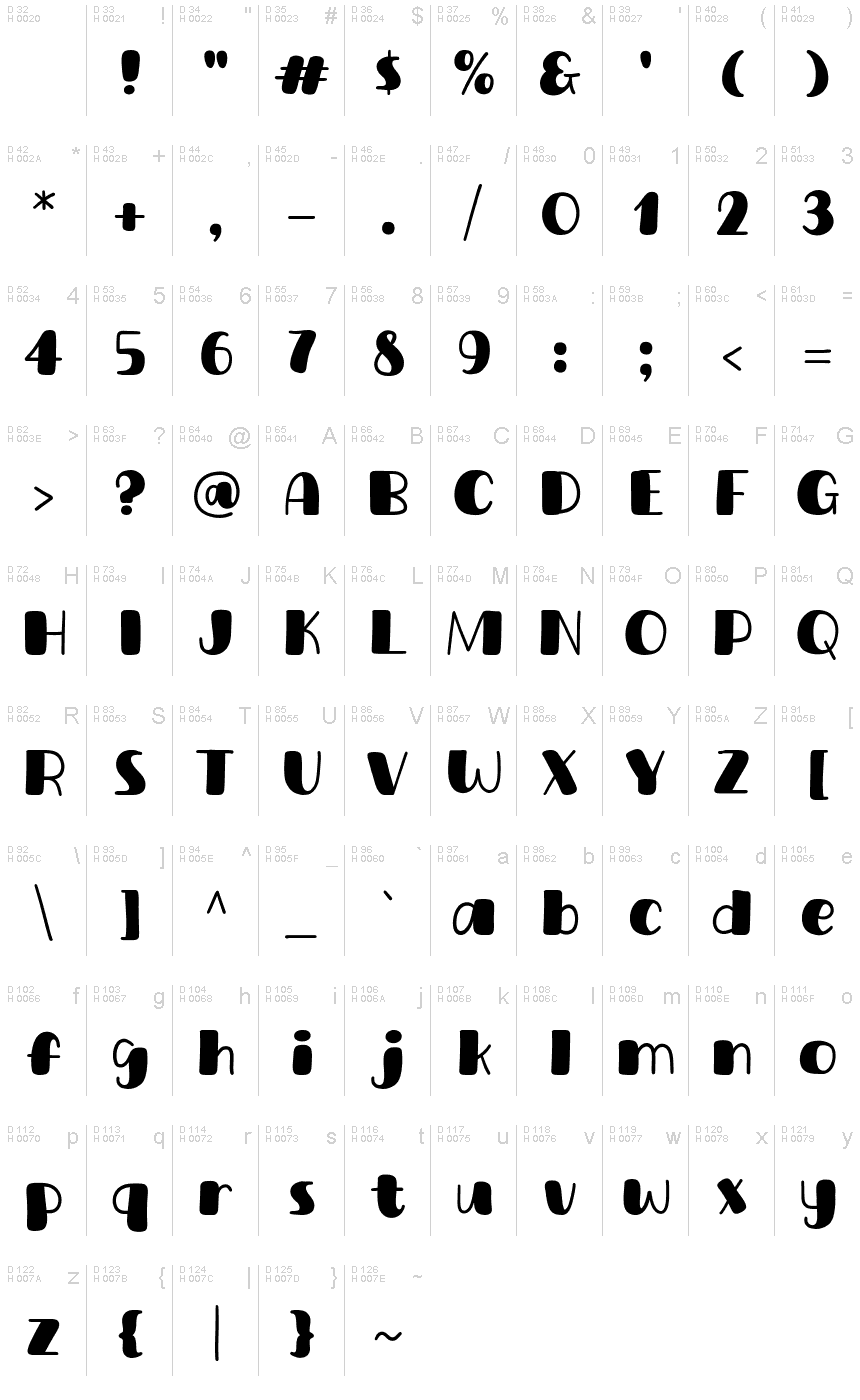
New Sushi
New Sushi, a delightful creation by Khurasan, is an extra-bold display font with a charming cartoon style. This modern and cute handwritten typeface is an ideal choice for various design projects.
With its playful and eye-catching appeal, New Sushi brings life to posters, logos, magazines, book covers, and banners. Let your creativity soar as this amazing font effortlessly enhances your artistic endeavors.
Explore the endless possibilities of New Sushi and witness how it effortlessly transforms ordinary designs into extraordinary ones!